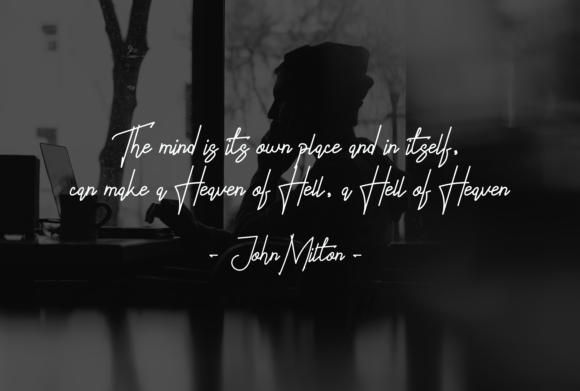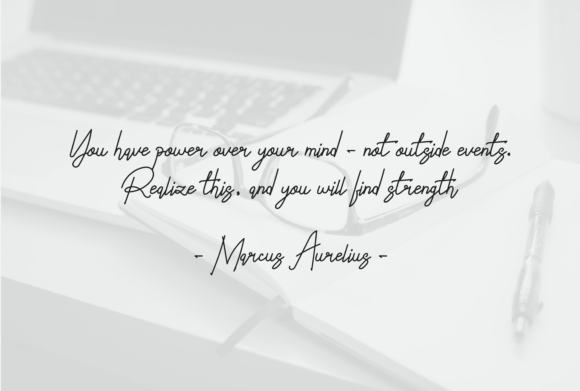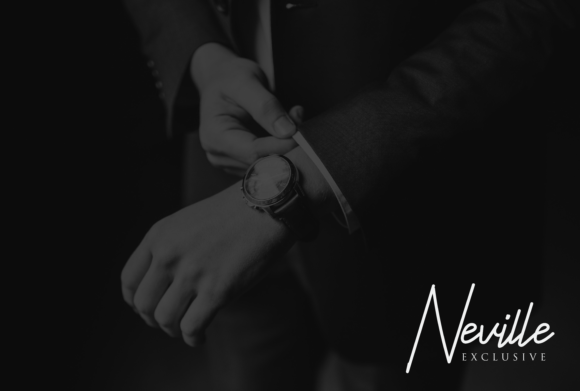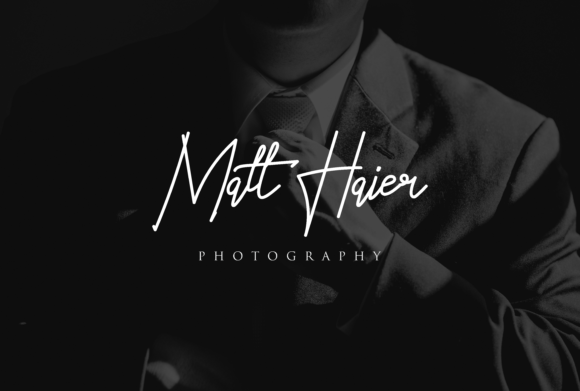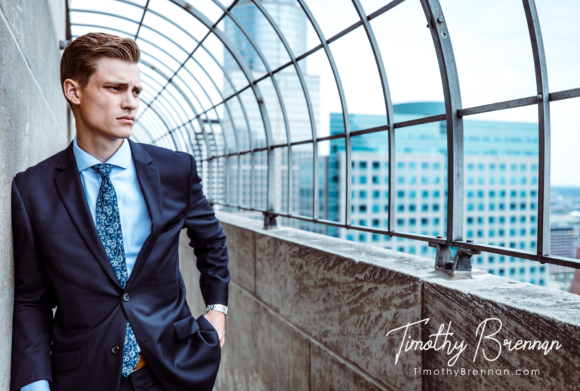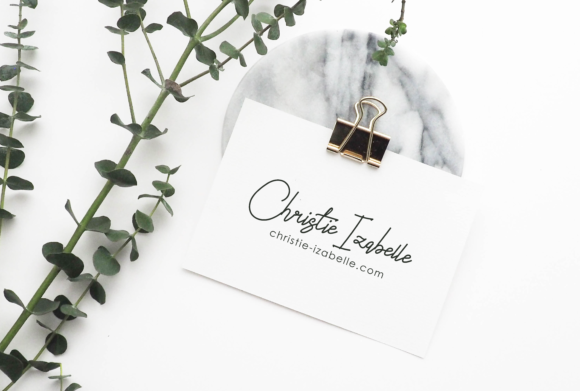
The Perfect Signature: Unleashing the Power of Charlotte Script Font
You’ve finally landed your dream design project, but you’re stuck on the perfect font to make it stand out. You want something that exudes elegance and sophistication, yet remains easy to read. It’s a challenge many designers face, but fear not, because the solution is here – the Charlotte Script Font.
This modern signature font is designed to add a touch of class to your logos, signatures, and branding materials. Its clean lines, subtle flair, and exceptional readability make it the perfect choice for designers who want to create a lasting impression. Whether you’re working on a personal project or a high-end corporate campaign, the Charlotte Script Font is an invaluable asset that will elevate your design game.
Charlotte Script Font Key Features
- Unique Characteristics: This script font features elegant, connected letters with subtle flair and fluidity, making it perfect for creating a sense of sophistication and refinement.
Charlotte Script Font Review
As a designer, I’ve had the chance to work with a wide range of fonts, and I must say that Charlotte Script is a beautiful addition to any project. ✨ Its elegant, cursive script makes it perfect for creating a touch of sophistication and romance in designs.
Here are some of the things that I think work well with Charlotte Script:
- Its versatility: Charlotte Script can be used in a variety of contexts, from wedding invitations to branding materials.
- Its legibility: Despite its cursive nature, Charlotte Script is surprisingly easy to read, even at smaller font sizes.
- Its aesthetic appeal: The font’s flowing lines and subtle flair make it a joy to look at.
- It can be a bit overused: With its popularity, Charlotte Script has become a bit of a cliché, and it may not stand out as much in certain contexts.
- It’s not ideal for small text: While Charlotte Script is legible at larger font sizes, it can become difficult to read when used in smaller text.
Overall, I think Charlotte Script is a beautiful font that can add a touch of elegance to any design. While it may have some limitations, it’s definitely worth considering for the right project.
Tips for Getting the Most Out of Charlotte Script Font
For optimal results, use Charlotte Script Font for titles, headings, and short paragraphs. It’s best paired with clean and simple backgrounds. Avoid using it for large blocks of text, as it can become difficult to read.
Charlotte Script Font is commonly used for:
- Wedding and event signage
- Quirky and playful marketing materials